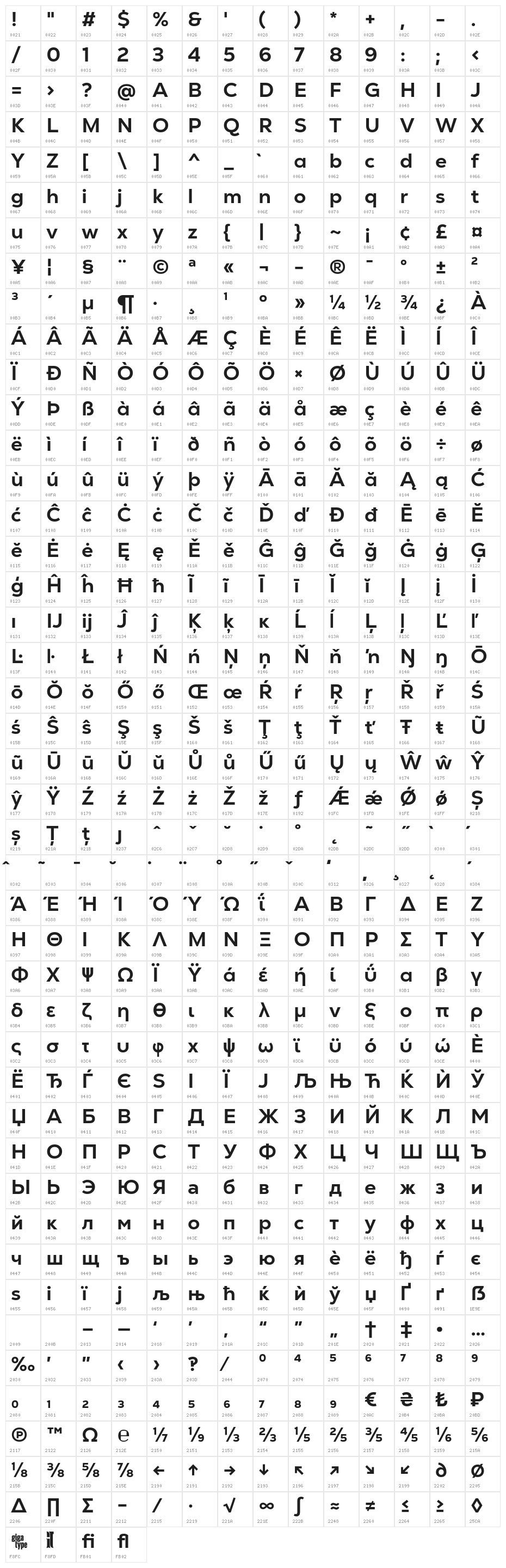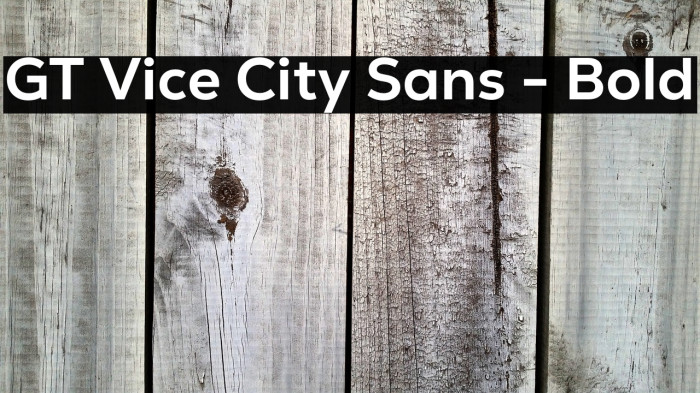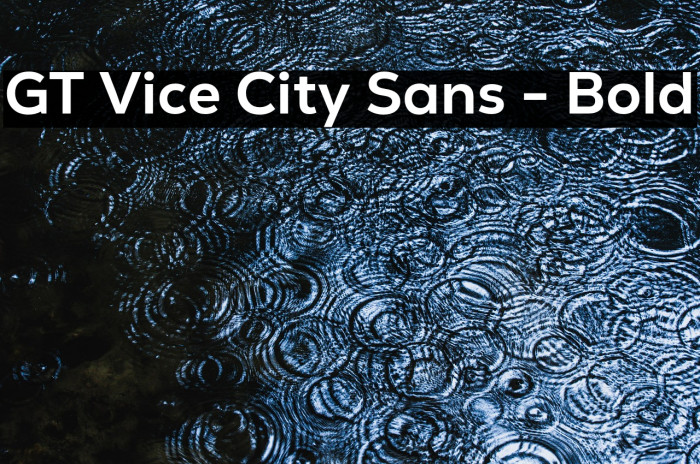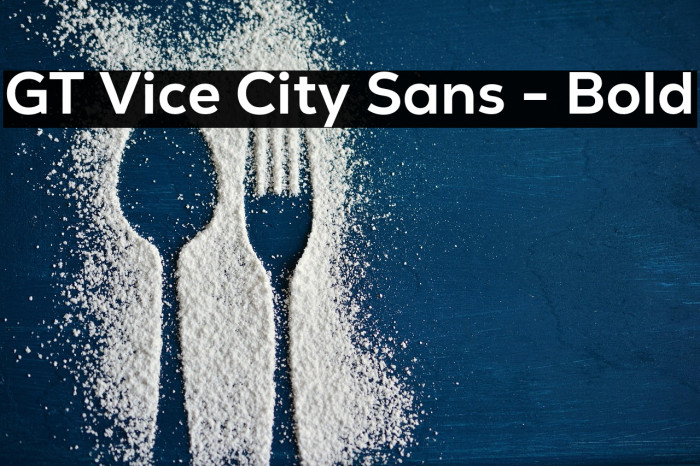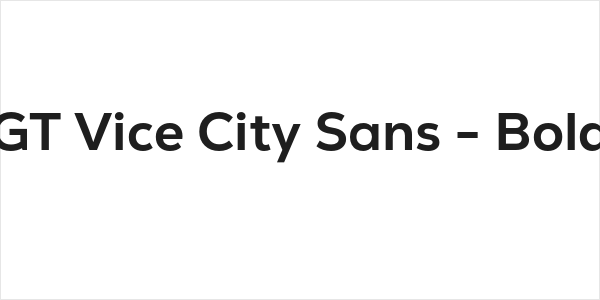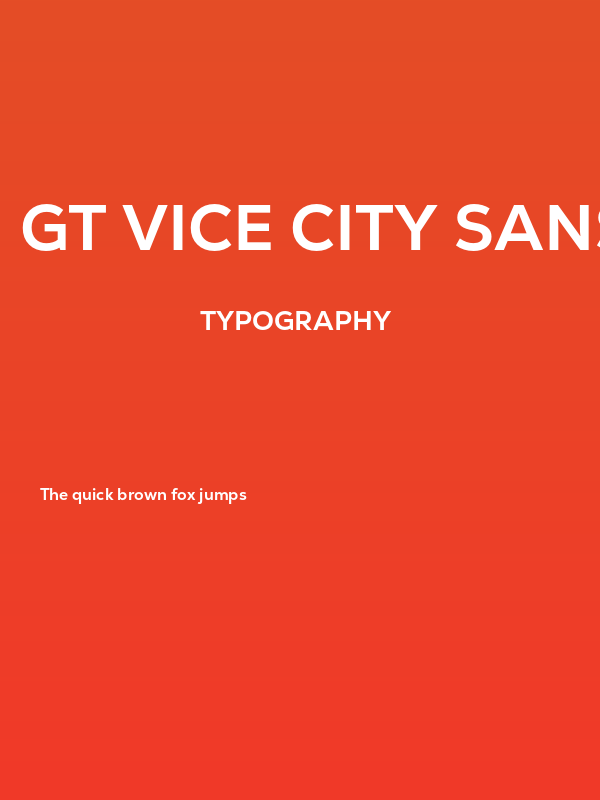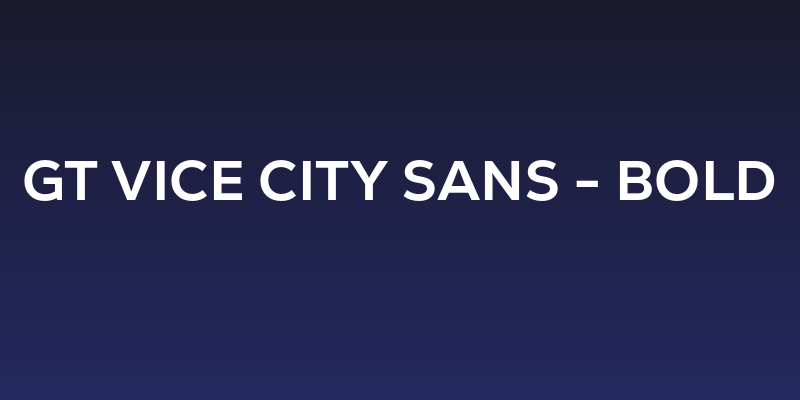
GT Vice City Sans - Bold Font
GT Vice City Sans - Bold Description
A bold, modern sans-serif font with clean lines and a contemporary style.
| Proposed Projects | Branding, headlines, digital media. |